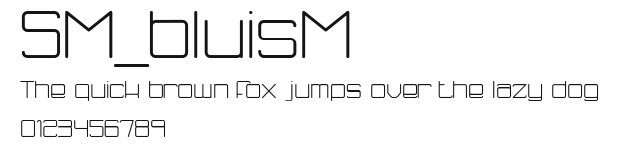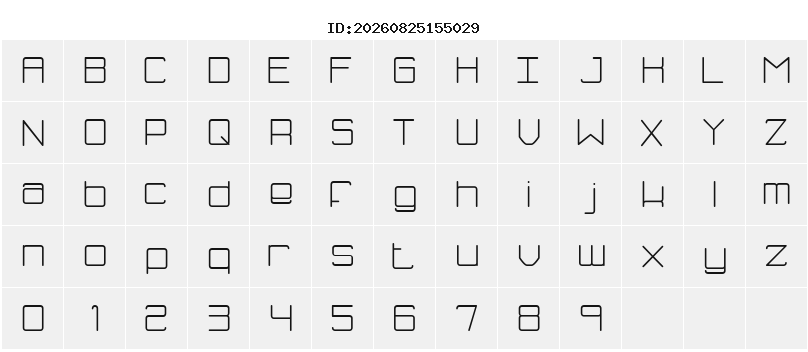
• Font Name: SM_bluisM
• Full Font Name: SM_bluisM
• Character Count: 104
About SM_bluisM.ttf
SM_bluisM.ttf is a modern, elegant sans-serif font designed for ultimate readability and visual harmony. Perfect for branding, headlines, web design, and print materials.